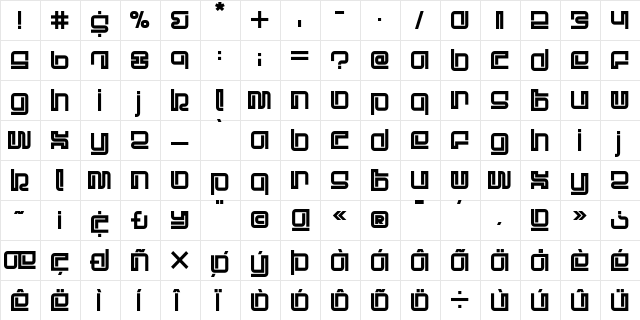
Children-Regular Regular
Design Context for Children-Regular Typeface
Children-Regular trades formality for fun, with bouncy, characterful letterforms that bring warmth and energy to any project.
Great for children's books, toy packaging, family event branding, and casual consumer-facing design.
Font Pairing: Pairs well with a rounded or humanist sans for body copy, maintaining the friendly tone without relying on Children-Regular to carry extended reading.
Pro Tip: Avoid using Children-Regular for long passages of text — it works best for headlines, labels, and short calls to action.